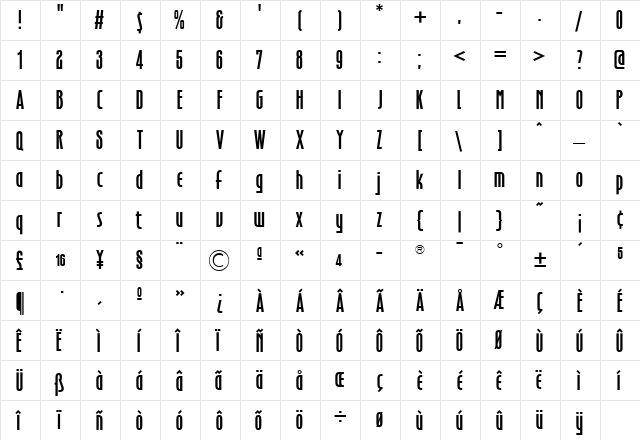
TFHotelmoderne Demi
| Foundry | Treacyfaces, Inc |
| Year | 1986 |
Design Context for TFHotelmoderne Typeface
TFHotelmoderne offers clean, dependable letterforms without strong stylistic allegiance, making it a practical choice for designers who need flexibility.
Pro Tip: Pair TFHotelmoderne with a font of contrasting weight or personality to build a more expressive typographic hierarchy.